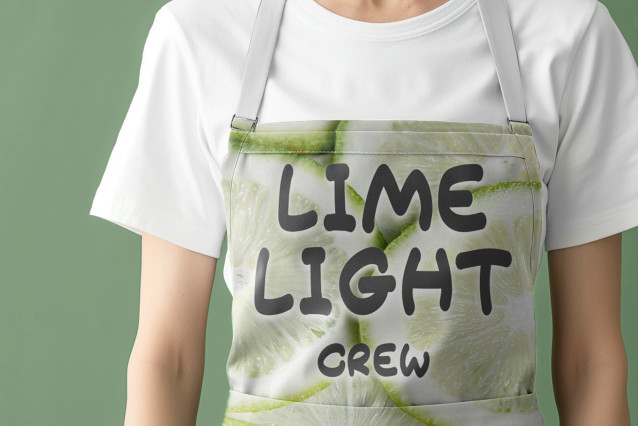
Banolime Font is a premium playful handwritten font designed to bring a friendly and fresh vibe to your creative projects. With its rounded edges and organic style, it’s perfect for branding, packaging, invitations, apparel, and social media graphics.
Its organic shapes and smooth curves make it versatile for both digital and print designs, from modern branding to fun merchandise.
Whether you’re designing for kids’ products, food brands, or modern crafts, Banolime delivers charm and personality to every design.